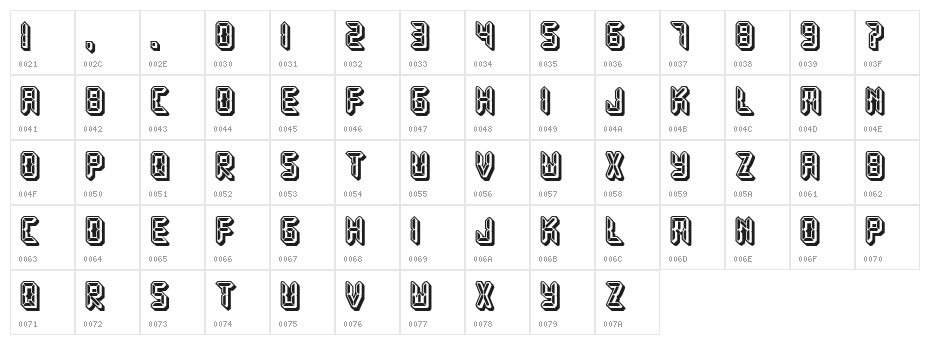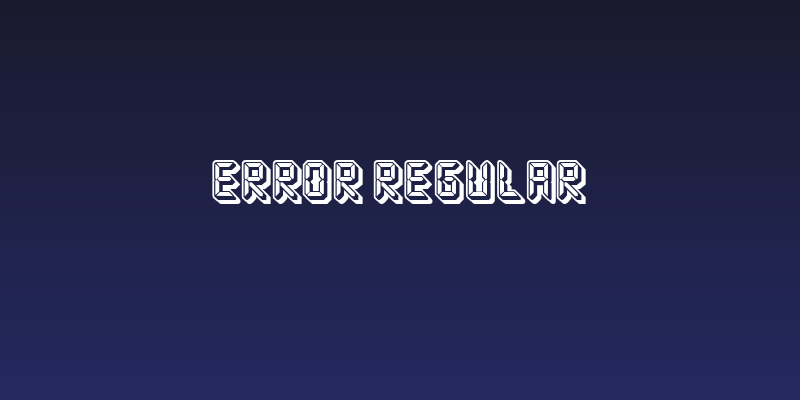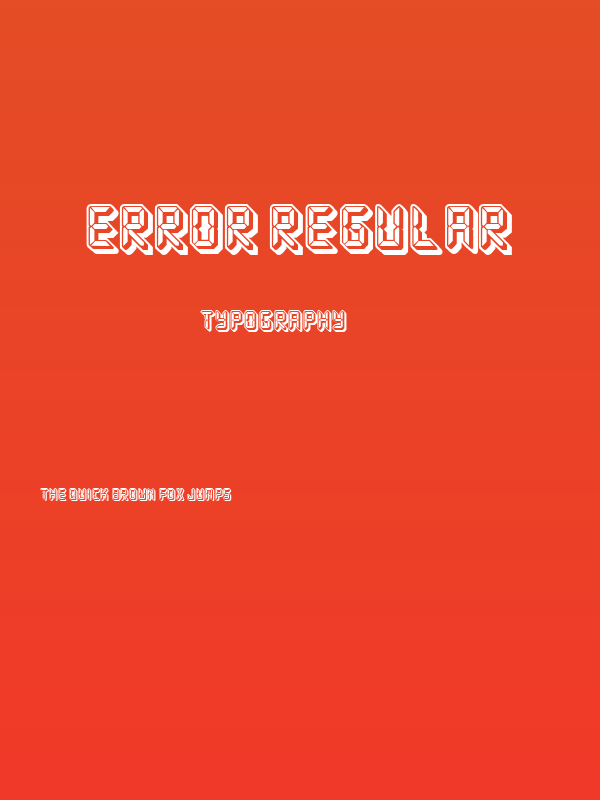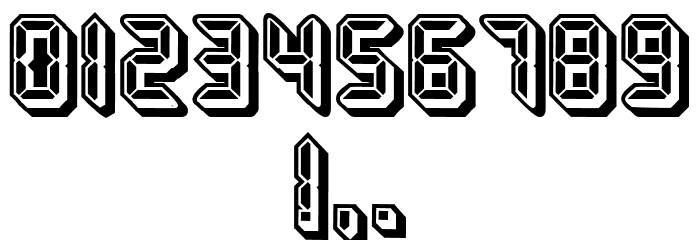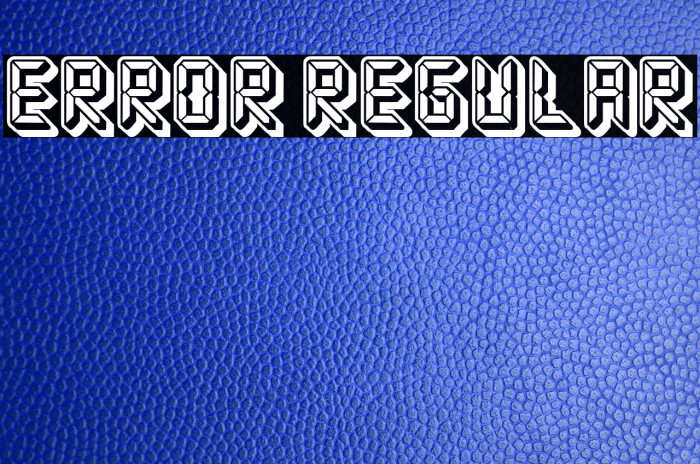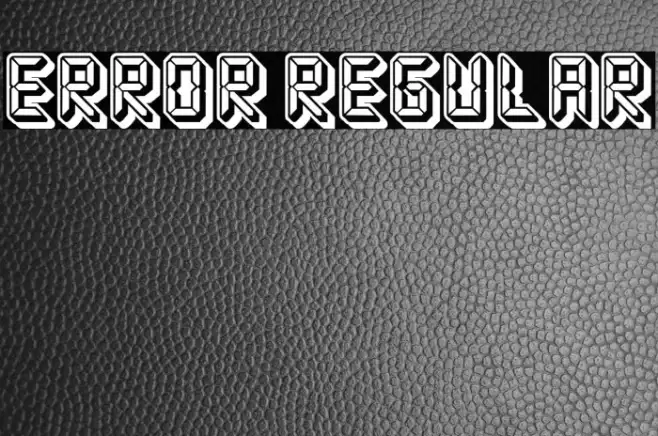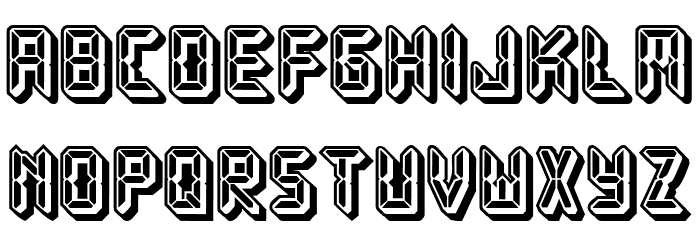
Error Regular Font
Error Regular Description
This font features a bold, geometric design with a three-dimensional effect, giving each character a block-like appearance. The letters are constructed with sharp angles and thick lines, creating a strong visual impact. The style is reminiscent of industrial or futuristic themes, with a distinct shadow effect that adds depth. The uppercase and lowercase letters maintain a consistent style, with numerals and special characters following the same design principles. This font is highly decorative and eye-catching, making it suitable for projects that require a standout typeface.
| Overall Style | Futuristic, Industrial |
| Proposed Projects | Ideal for posters, video game titles, sci-fi themed designs, and branding that requires a futuristic or industrial look. |